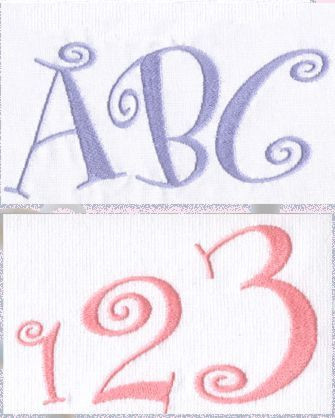
026 Boingo SatinFill Font
Boingo SatinFill Font comes in 1.5", 2.25" and 3" tall Numbers and Letters (includes upper and lower case letters). These curly letters feature SatinFill Stitch finishing and are available in pes, xxx, jef, sew, vip, dst, and hus formats.